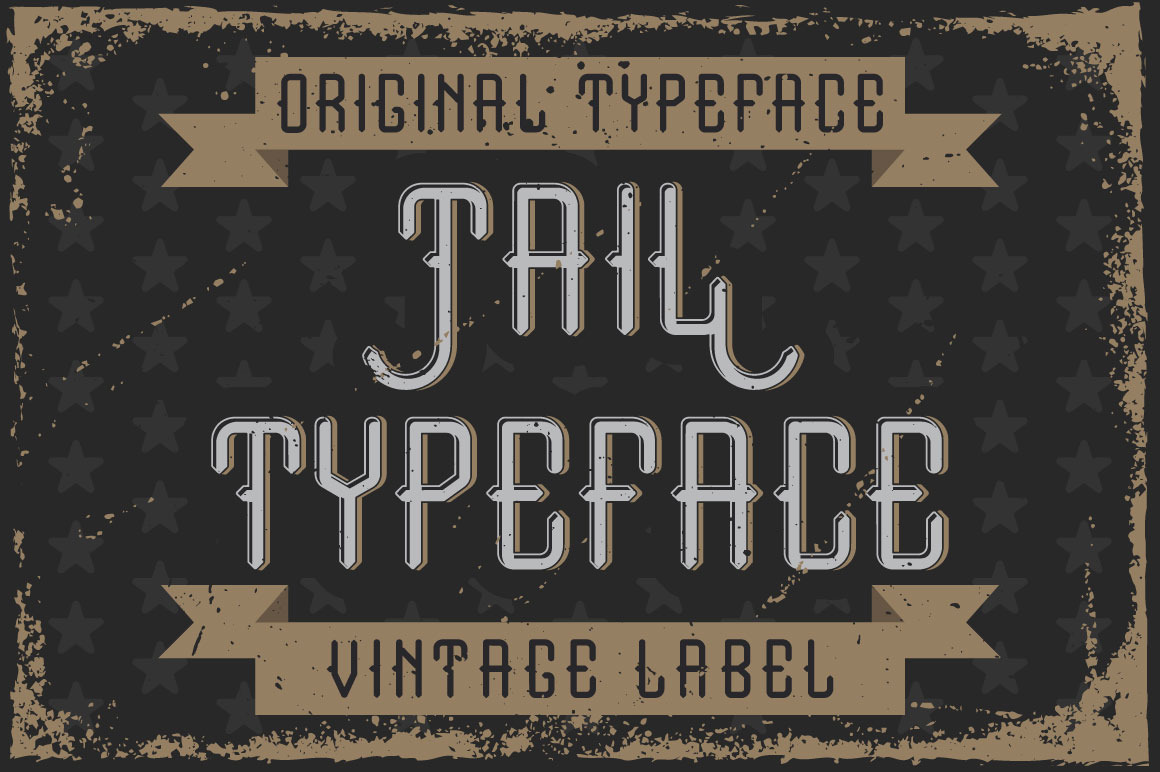
Handcrafted font "Tail"
Introducing a vintage label typeface called "Tail". It's made in strong and vintage label style. Typeface looks great on any label designs and t-shirts.
- 5 fonts in complect with special effects
- You can mix color of base font, light and shadow effect